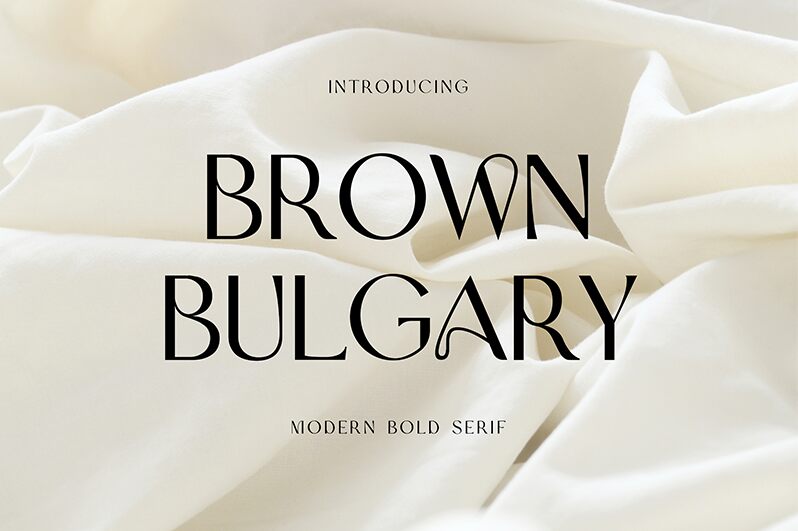
BrownBulgary Regular
You are looking at Brown Bulgary, a vintage serif typeface with a mix of styles, inspired by the Golden Age and its timeless designs. This font was created by UI Creative and can be found free, so download it and use it for posters, flyers, labels, business cards, book covers, magazines, and other projects, both personal and commercial.
Brown Bulgary is perfect for display, packaging, and apparel branding, it can also be added to your logotypes and websites. This serif font with its elegant and beautiful designs, combined with its beautiful ornaments and swashes, gives a sophisticated look to any project. And if you want more font options, check out this collection of free vintage serifs.